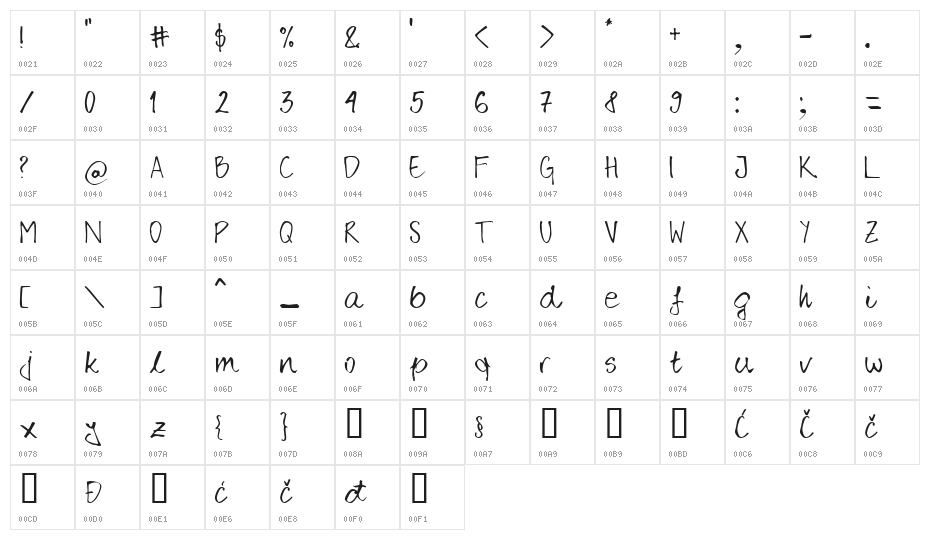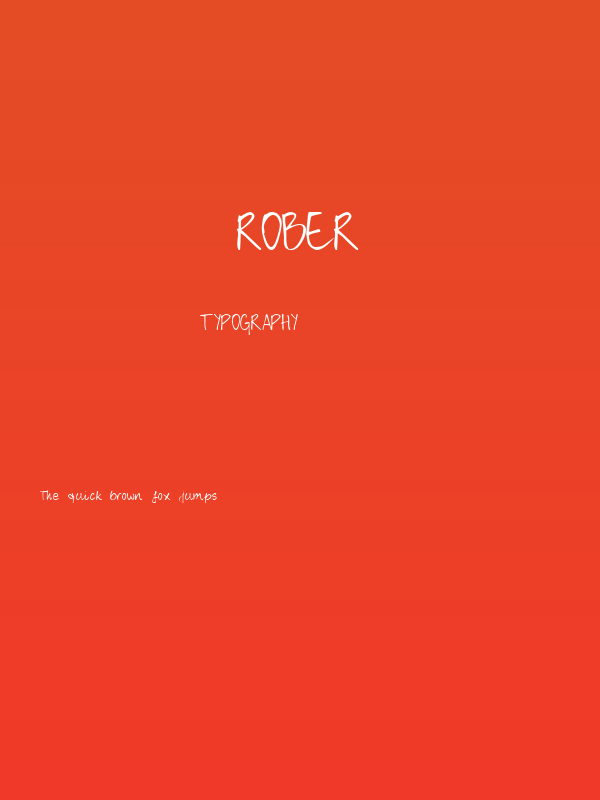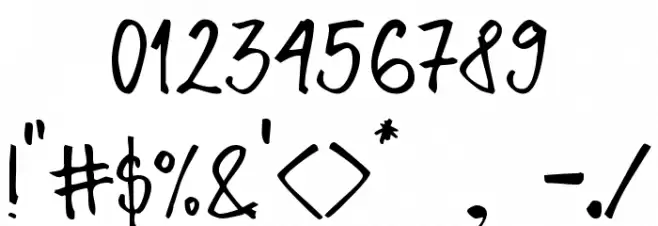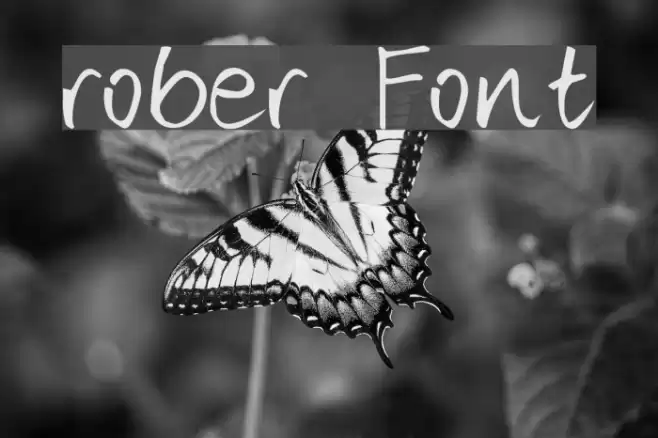
rober Font
rober Description
This font features a playful and casual handwritten style, characterized by its irregular strokes and dynamic flow. The uppercase letters are bold and slightly slanted, giving a sense of movement and energy. The lowercase letters maintain a consistent style, with some letters featuring loops and curls that add to the font's whimsical nature. The numbers are clear and easy to read, maintaining the same playful aesthetic. Special characters are creatively designed, fitting seamlessly with the overall style. This font's informal and friendly appearance makes it suitable for projects that aim to convey a personal touch or a sense of fun.
| Overall Style | Casual, Playful |
| Use Case | Headlines, Informal text, Creative projects |
| Proposed Projects | Ideal for greeting cards, children's books, casual branding, and social media graphics. |